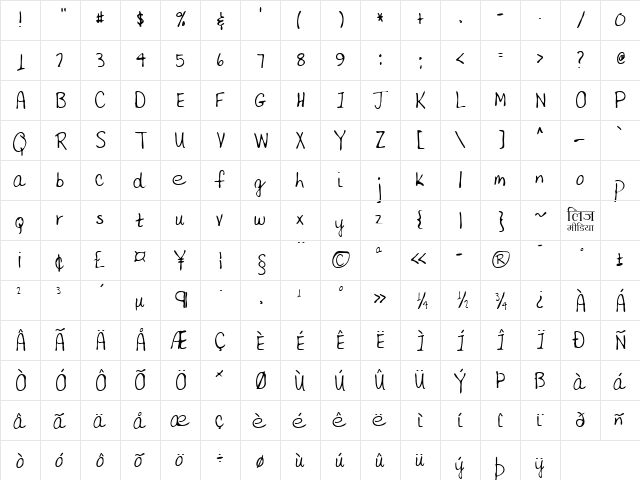
LEHN154 Regular Font Preview
LEHN154 Regular
LEHN154 Regular Font Details
Design Context for LEHN154 Typeface
LEHN154 is a composed and adaptable typeface that performs quietly and consistently across a wide range of design contexts.